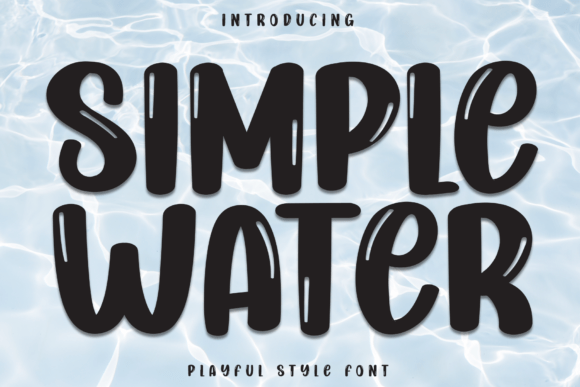
Introducing Simple Water Font: The Playful Typeface for Creative Designs
Are you looking for a font that bursts with fun and creativity? Do you want to add a lighthearted and cheerful vibe to your designs? Look no further than Simple Water Font, a playful typeface that’s perfect for kids’ projects, party invites, logos, packaging, and more.
A Hand-Drawn Charm
Simple Water Font is a hand-drawn typeface that exudes a sense of playfulness and imagination. Its bouncy letterforms are designed to bring a smile to your face, making it the perfect choice for designs that require a fun and carefree approach. The font’s hand-drawn charm is evident in its subtle imperfections and quirks, which add to its whimsical nature.
Endless Design Possibilities
Simple Water Font is a versatile typeface that can be used in a wide range of design projects. Here are some ideas to get you started:
- Kids’ projects: Create fun and engaging educational materials, such as worksheets, activity sheets, and storybooks.
- Party invites: Add a playful touch to your party invitations, flyers, and posters.
- Logos: Create a memorable and whimsical logo for your brand or business.
- Packaging: Add a pop of fun to your product packaging, labels, and tags.
- Social media graphics: Create engaging social media graphics, such as Facebook posts, Instagram stories, and Twitter headers.
Key Features of Simple Water Font
So, what makes Simple Water Font so special? Here are some of its key features:
- Hand-drawn letterforms: Each letterform is carefully crafted to bring a sense of playfulness and imagination.
- Bouncy and irregular shapes: The font’s bouncy and irregular shapes add to its whimsical nature.
- Subtle imperfections: The font’s subtle imperfections and quirks give it a human touch.
- Easy to read: Despite its playful nature, Simple Water Font is easy to read and understand.
Design Tips for Using Simple Water Font
Here are some design tips to help you get the most out of Simple Water Font:
- Pair with contrasting fonts: Pair Simple Water Font with a contrasting font to create visual interest.
- Use bright colors: Use bright and bold colors to match the font’s playful nature.
- Experiment with sizes: Experiment with different font sizes to create a sense of hierarchy.
- Keep it simple: Don’t overcomplicate your design – Simple Water Font is perfect for simple and clean designs.
Draw Inspiration from Simple Water Font
Simple Water Font is more than just a typeface – it’s a design inspiration. Here are some ways to draw inspiration from this playful font:
- Playful illustrations: Create playful illustrations that match the font’s whimsical nature.
- Bright color palettes: Use bright and bold color palettes to match the font’s playful nature.
- Whimsical patterns: Create whimsical patterns using the font’s letterforms and shapes.
- Fun textures: Experiment with fun textures and graphics to add depth to your design.
Simple Water Font is a playful typeface that’s perfect for designers who want to add a lighthearted and cheerful vibe to their designs. With its hand-drawn charm, bouncy letterforms, and subtle imperfections, this font is sure to bring a smile to your face. Whether you’re working on kids’ projects, party invites, logos, packaging, or social media graphics, Simple Water Font is the perfect choice. So, let your designs radiate joy and imagination with Simple Water Font!